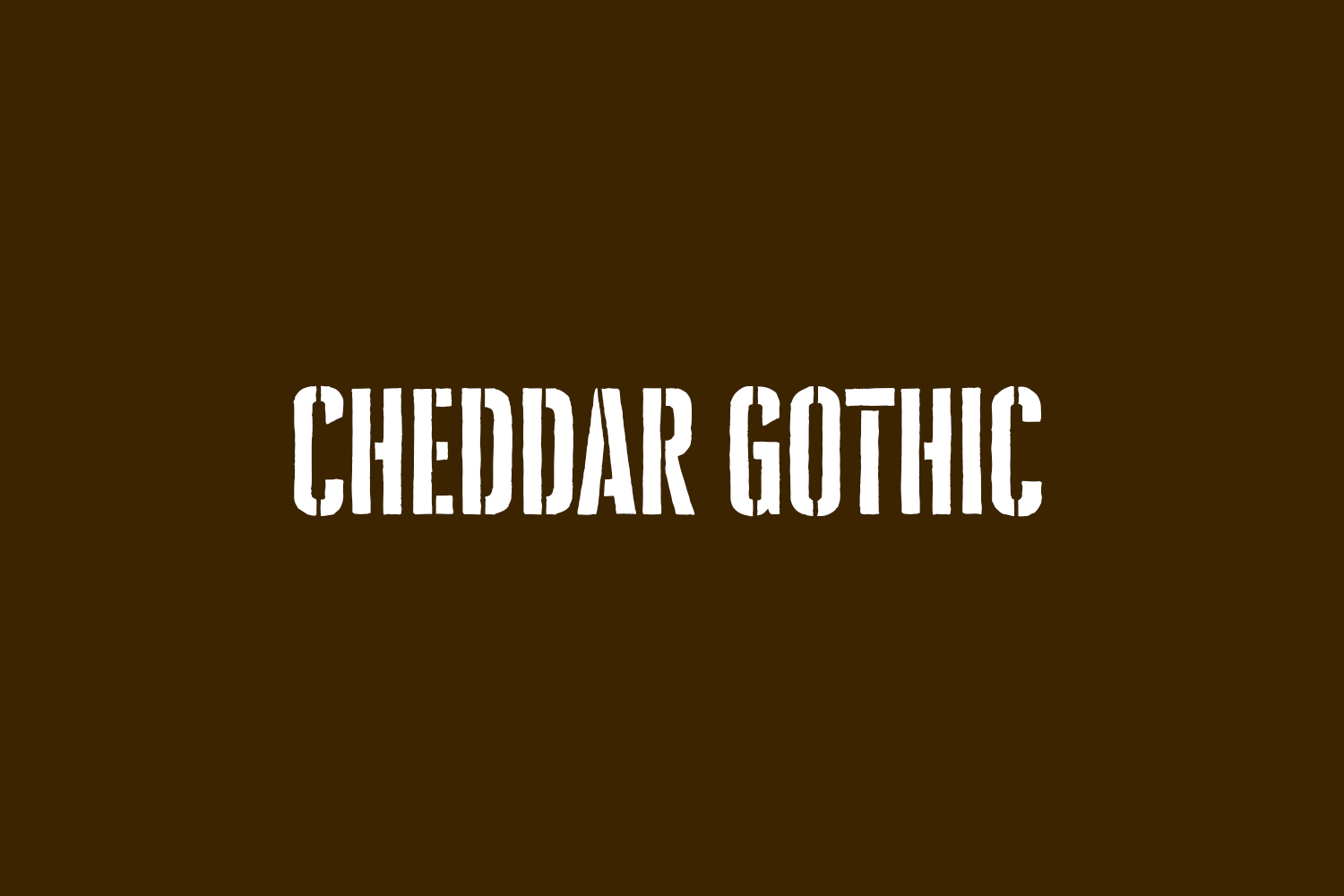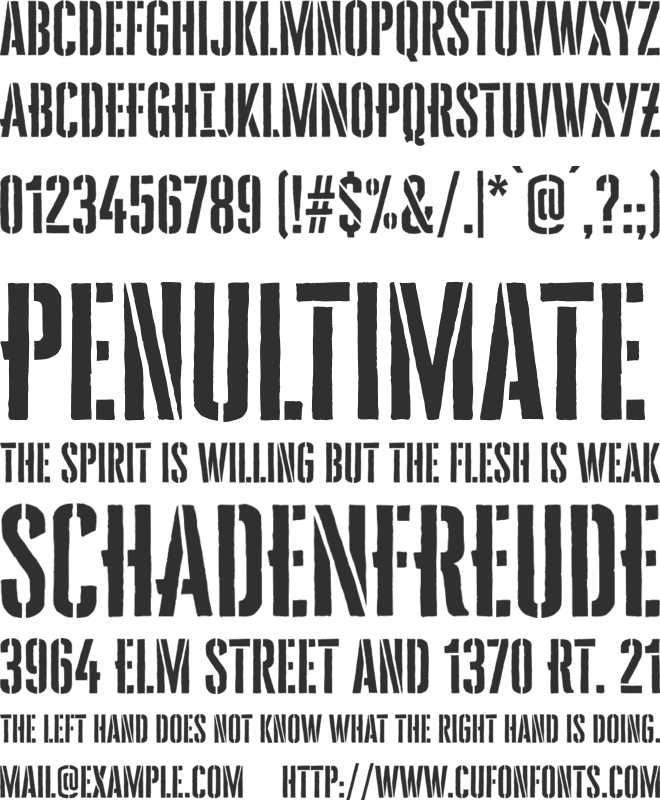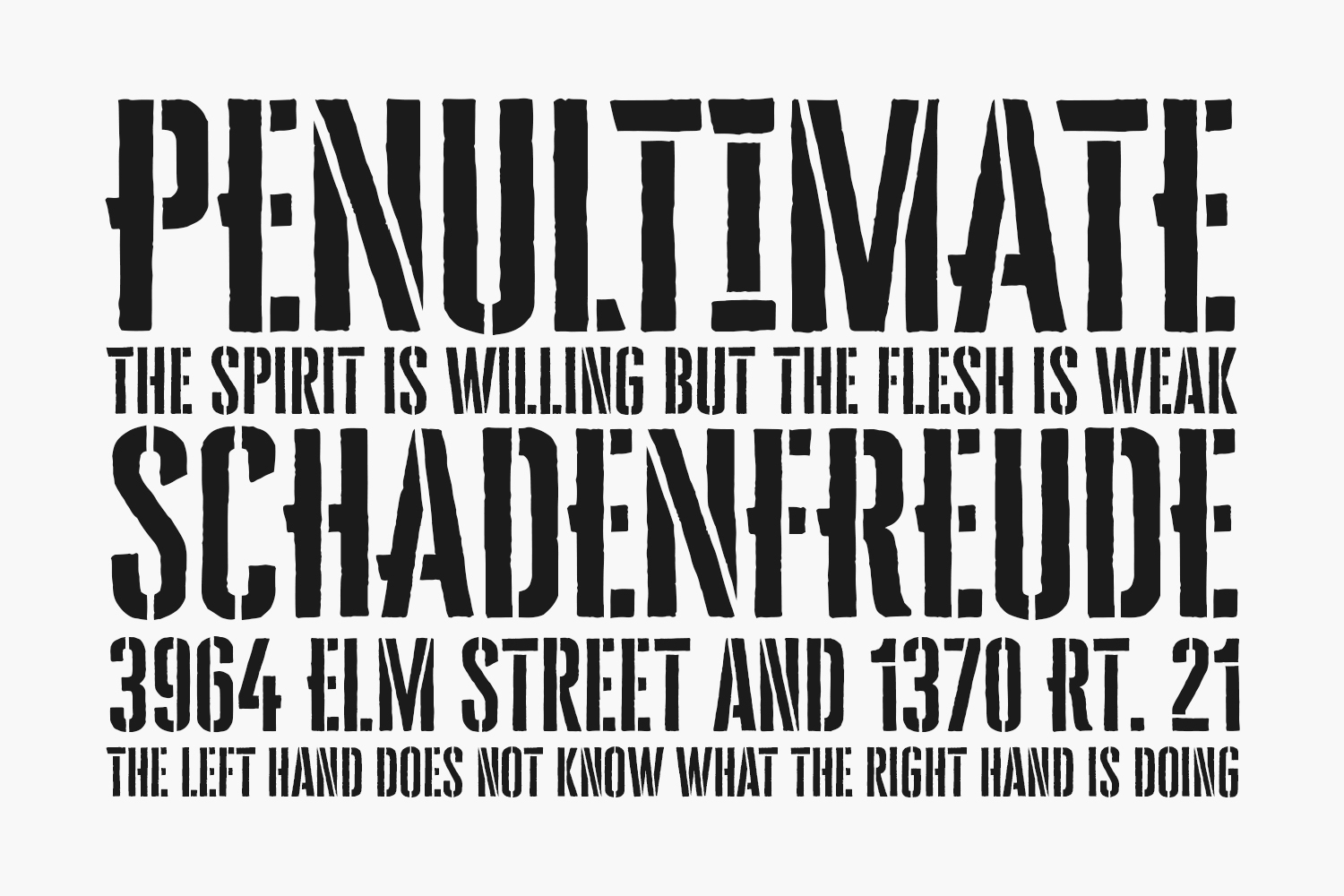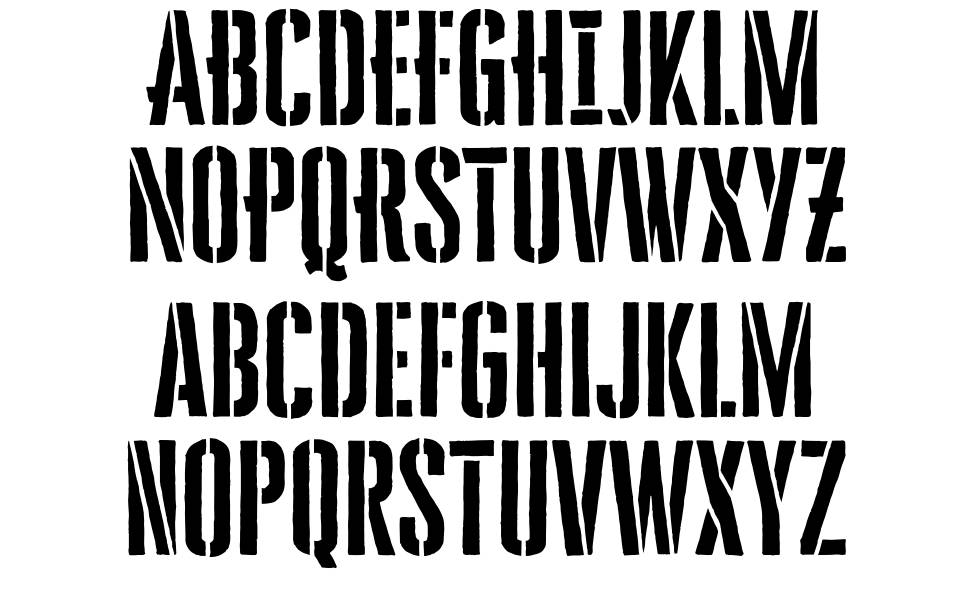
Cheddar Gothic Font
Cheddar Gothic Font - Web cheddar gothic is a hand drawn, 8 style type family, including sans, serif, slab, and stencil (free) styles—each with italics and includes 92 matching. Cheddar gothic designed by adam ladd. Web cheddar gothic stencil free. Cheddar gothic designed by adam ladd. Introducing cheddar gothic font family. Web unlimited free fonts download cheddar gothic is a hand drawn, 8 style type family, including sans, serif, slab, and stencil (free) styles—each with. Web introducing cheddar gothic font family. Web cheddar gothic font pairings about type designer {{designer.name}} adam ladd with an emphasis on typefaces designed to be useful and unique, adam ladd crafts fonts. Cheddar gothic is a hand drawn, 8 style. Cheddar gothic is a hand drawn, 8 style typeface family including sans,.
Cheddar gothic designed by adam ladd. Introducing cheddar gothic font family. Web cheddar gothic stencil free. Web cheddar gothic is a hand drawn, 8 style type family, including sans, serif, slab, and stencil (free) styles—each with italics and includes 92 matching. Cheddar gothic is a hand drawn, 8 style typeface family including sans,. Web cheddar gothic font pairings about type designer {{designer.name}} adam ladd with an emphasis on typefaces designed to be useful and unique, adam ladd crafts fonts. Cheddar gothic designed by adam ladd. Web unlimited free fonts download cheddar gothic is a hand drawn, 8 style type family, including sans, serif, slab, and stencil (free) styles—each with. Web introducing cheddar gothic font family. Cheddar gothic is a hand drawn, 8 style.
Cheddar gothic designed by adam ladd. Web cheddar gothic stencil free. Cheddar gothic designed by adam ladd. Web unlimited free fonts download cheddar gothic is a hand drawn, 8 style type family, including sans, serif, slab, and stencil (free) styles—each with. Web cheddar gothic is a hand drawn, 8 style type family, including sans, serif, slab, and stencil (free) styles—each with italics and includes 92 matching. Introducing cheddar gothic font family. Cheddar gothic is a hand drawn, 8 style. Web cheddar gothic font pairings about type designer {{designer.name}} adam ladd with an emphasis on typefaces designed to be useful and unique, adam ladd crafts fonts. Web introducing cheddar gothic font family. Cheddar gothic is a hand drawn, 8 style typeface family including sans,.
Web cheddar gothic is a hand drawn, 8 style type family, including sans, serif, slab, and stencil (free) styles—each with italics and includes 92 matching. Cheddar gothic designed by adam ladd. Cheddar gothic is a hand drawn, 8 style. Cheddar gothic designed by adam ladd. Web unlimited free fonts download cheddar gothic is a hand drawn, 8 style type family,.
Cheddar Gothic Rough Font By Adam Ladd
Cheddar gothic is a hand drawn, 8 style. Cheddar gothic designed by adam ladd. Introducing cheddar gothic font family. Web cheddar gothic is a hand drawn, 8 style type family, including sans, serif, slab, and stencil (free) styles—each with italics and includes 92 matching.
Cheddar Gothic Font YouWorkForThem
Web cheddar gothic is a hand drawn, 8 style type family, including sans, serif, slab, and stencil (free) styles—each with italics and includes 92 matching. Cheddar gothic designed by adam ladd. Introducing cheddar gothic font family. Web unlimited free fonts download cheddar gothic is a hand drawn, 8 style type family, including sans, serif, slab, and stencil (free) styles—each with..
Cheddar Gothic Rough Font By Adam Ladd
Web cheddar gothic font pairings about type designer {{designer.name}} adam ladd with an emphasis on typefaces designed to be useful and unique, adam ladd crafts fonts. Web unlimited free fonts download cheddar gothic is a hand drawn, 8 style type family, including sans, serif, slab, and stencil (free) styles—each with. Web introducing cheddar gothic font family. Introducing cheddar gothic font.
Cheddar Gothic Rough Font Sans Serif Fonts Creative Market
Web introducing cheddar gothic font family. Web unlimited free fonts download cheddar gothic is a hand drawn, 8 style type family, including sans, serif, slab, and stencil (free) styles—each with. Cheddar gothic designed by adam ladd. Web cheddar gothic is a hand drawn, 8 style type family, including sans, serif, slab, and stencil (free) styles—each with italics and includes 92.
Cheddar Gothic Fonts Shmonts
Web unlimited free fonts download cheddar gothic is a hand drawn, 8 style type family, including sans, serif, slab, and stencil (free) styles—each with. Cheddar gothic is a hand drawn, 8 style. Cheddar gothic designed by adam ladd. Web cheddar gothic stencil free. Web introducing cheddar gothic font family.
Cheddar Gothic Font Dafont Free
Web unlimited free fonts download cheddar gothic is a hand drawn, 8 style type family, including sans, serif, slab, and stencil (free) styles—each with. Cheddar gothic is a hand drawn, 8 style typeface family including sans,. Cheddar gothic designed by adam ladd. Introducing cheddar gothic font family. Cheddar gothic is a hand drawn, 8 style.
Cheddar Gothic Stencil Font Download Free for Desktop & Webfont
Cheddar gothic is a hand drawn, 8 style typeface family including sans,. Cheddar gothic designed by adam ladd. Introducing cheddar gothic font family. Web cheddar gothic font pairings about type designer {{designer.name}} adam ladd with an emphasis on typefaces designed to be useful and unique, adam ladd crafts fonts.
Cheddar Gothic Fonts Shmonts
Cheddar gothic designed by adam ladd. Cheddar gothic is a hand drawn, 8 style typeface family including sans,. Web cheddar gothic is a hand drawn, 8 style type family, including sans, serif, slab, and stencil (free) styles—each with italics and includes 92 matching. Cheddar gothic designed by adam ladd. Introducing cheddar gothic font family.
Cheddar Gothic Stencil font by Adam Ladd FontRiver
Introducing cheddar gothic font family. Cheddar gothic designed by adam ladd. Web unlimited free fonts download cheddar gothic is a hand drawn, 8 style type family, including sans, serif, slab, and stencil (free) styles—each with. Web cheddar gothic stencil free. Cheddar gothic is a hand drawn, 8 style.
Introducing Cheddar Gothic Font Family.
Web cheddar gothic is a hand drawn, 8 style type family, including sans, serif, slab, and stencil (free) styles—each with italics and includes 92 matching. Web cheddar gothic font pairings about type designer {{designer.name}} adam ladd with an emphasis on typefaces designed to be useful and unique, adam ladd crafts fonts. Cheddar gothic designed by adam ladd. Cheddar gothic is a hand drawn, 8 style typeface family including sans,.
Web Unlimited Free Fonts Download Cheddar Gothic Is A Hand Drawn, 8 Style Type Family, Including Sans, Serif, Slab, And Stencil (Free) Styles—Each With.
Cheddar gothic is a hand drawn, 8 style. Web introducing cheddar gothic font family. Cheddar gothic designed by adam ladd. Web cheddar gothic stencil free.